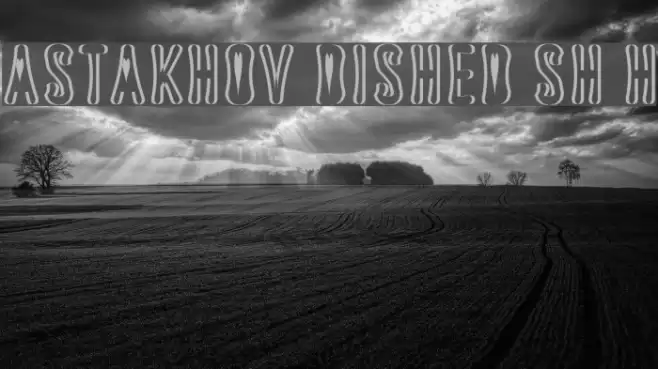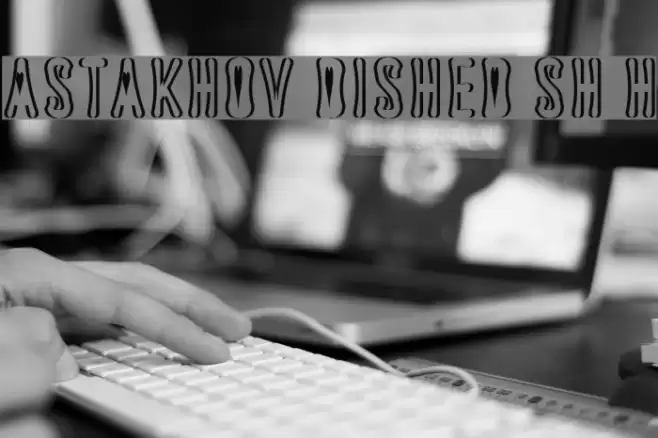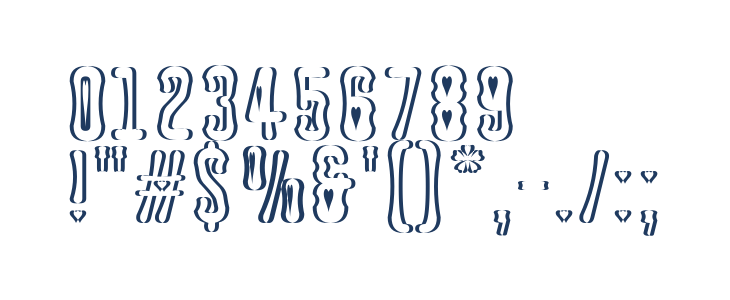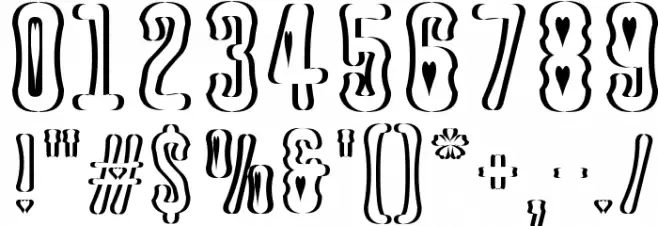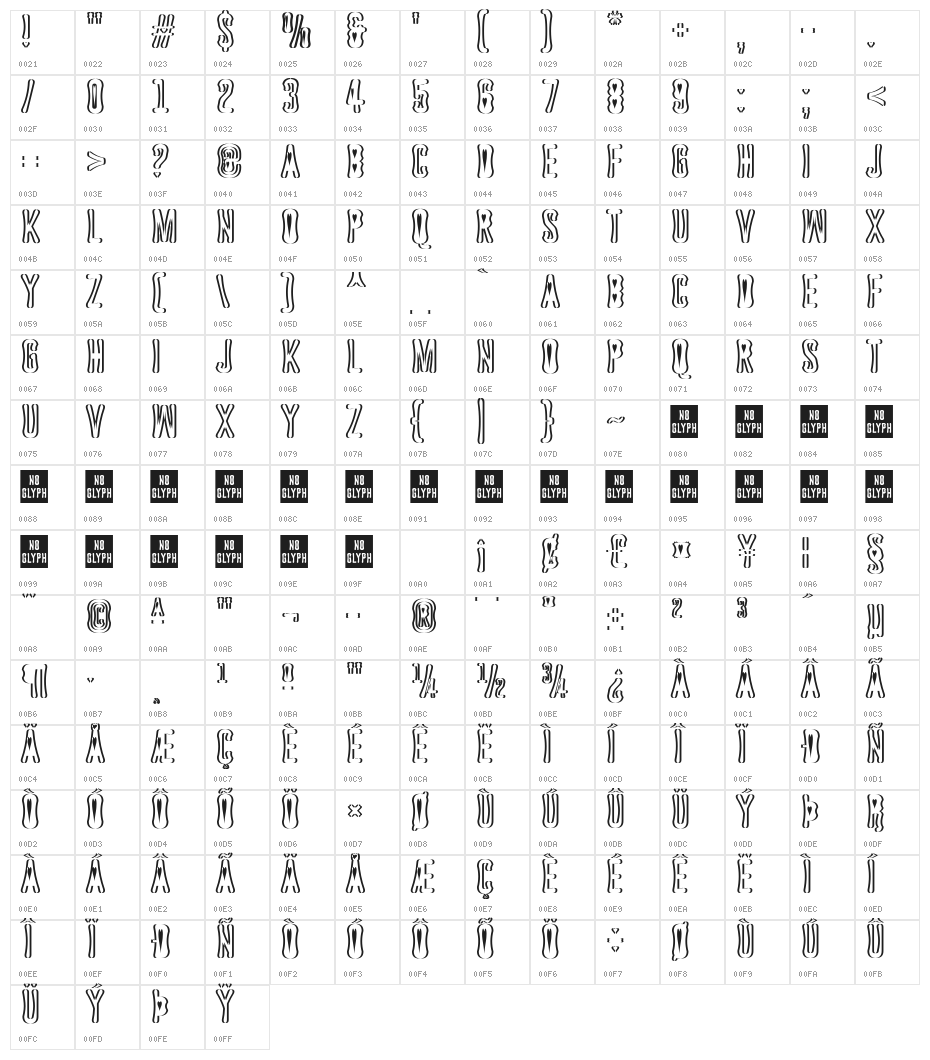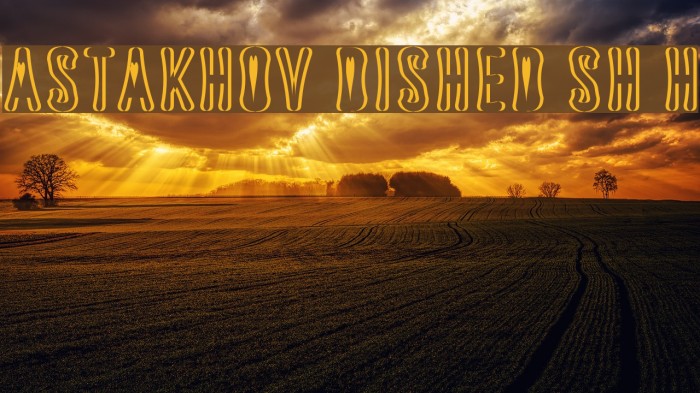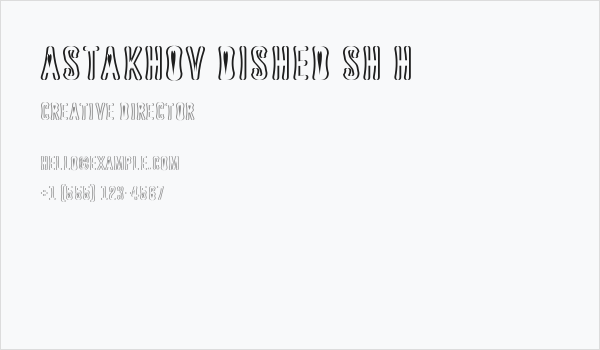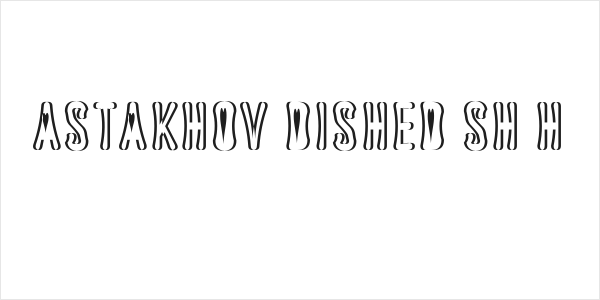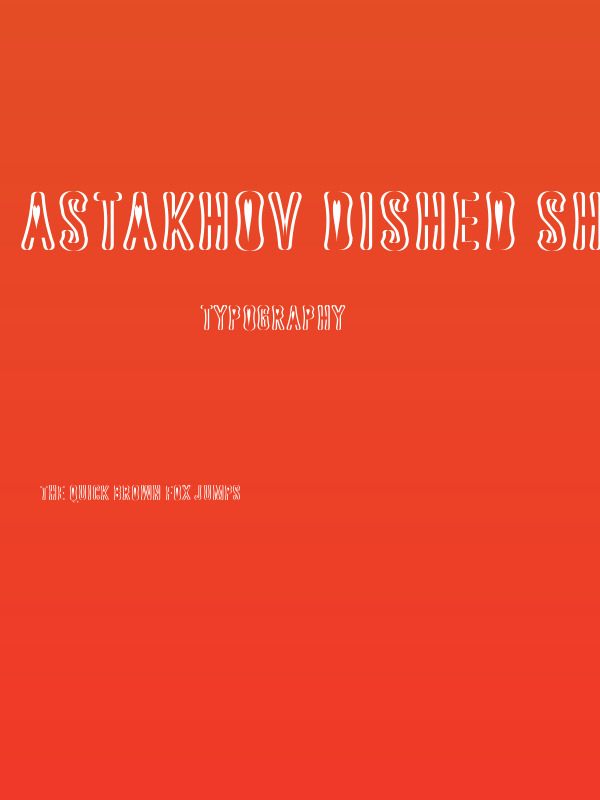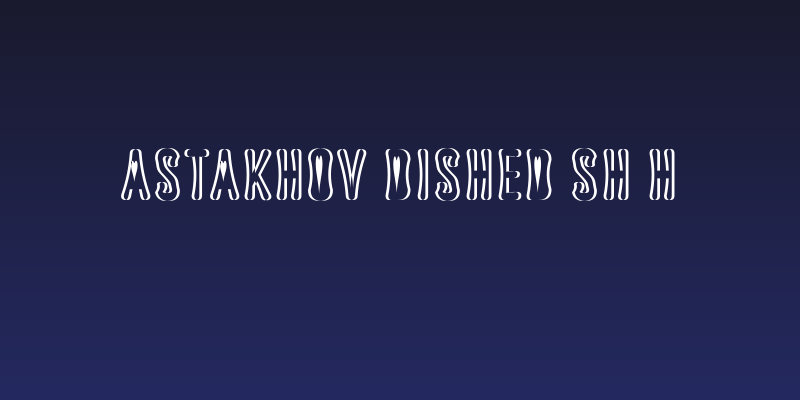
Astakhov Dished Sh H Font
Astakhov Dished Sh H Description
This font features a bold and decorative style with a unique, playful character. Each letter is designed with a hollow center and thick, wavy outlines that create a dynamic and eye-catching appearance. The uppercase and lowercase letters maintain a consistent style, while the numbers and special characters complement the overall design. The font's whimsical nature is enhanced by the inclusion of heart shapes within some characters, adding a touch of charm and creativity. Its distinctiveness makes it suitable for projects that require a strong visual impact.
A bold, decorative font with hollow centers and wavy outlines, featuring playful heart details from Uncategorized fonts.